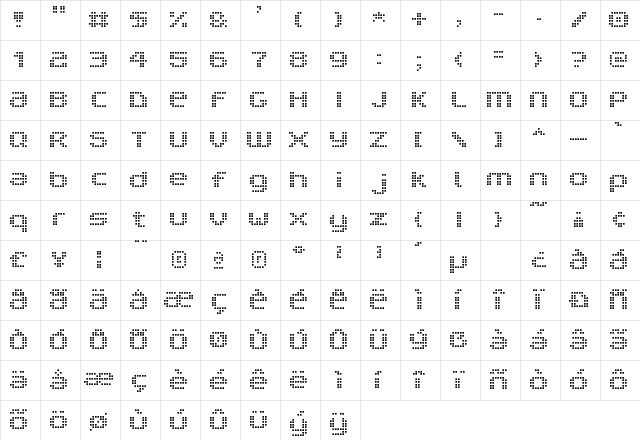
V5 Prophit Cell Free Font
V5 Prophit Cell
Style: Cell
Design Context for V5 Prophit
V5 Prophit is a composed and adaptable typeface that performs quietly and consistently across a wide range of design contexts.